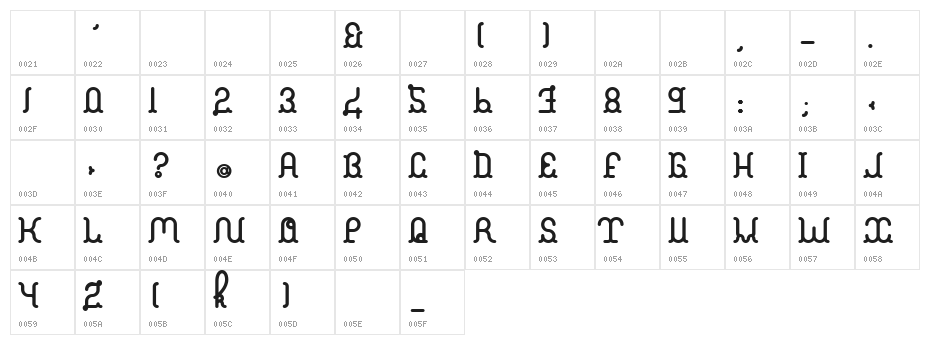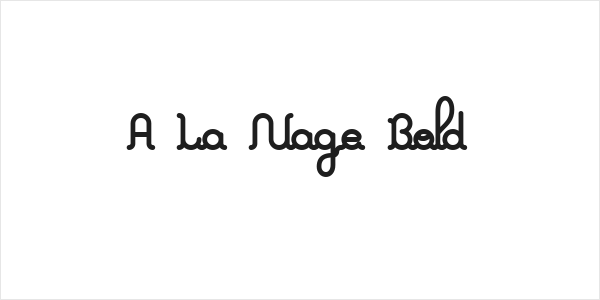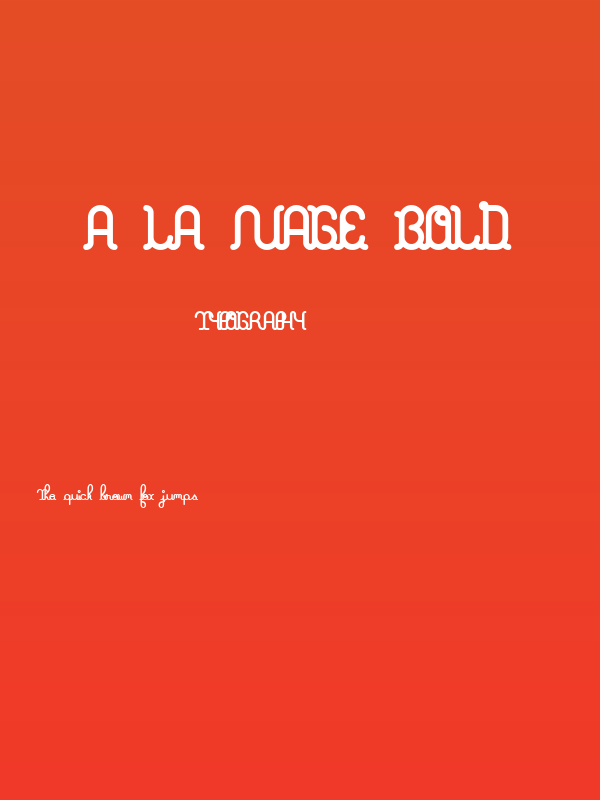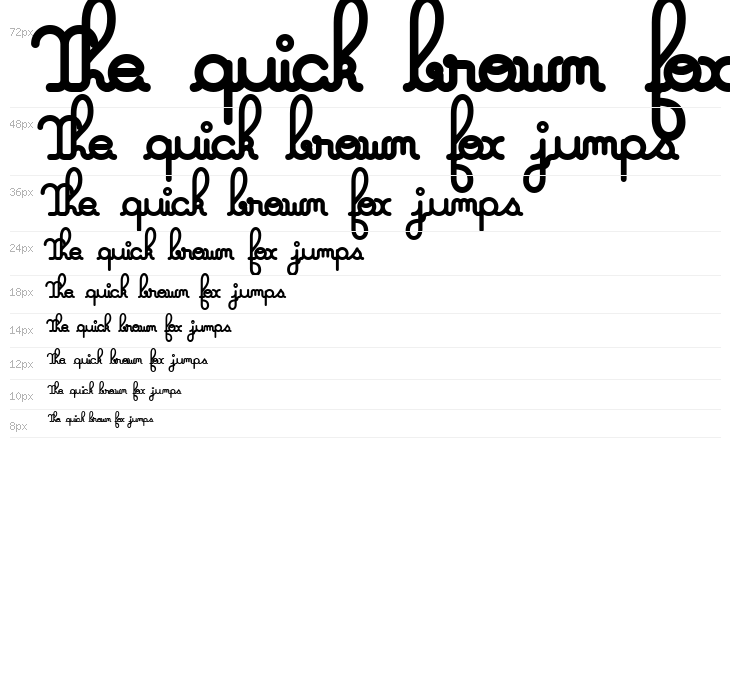
A La Nage Bold Font
A La Nage Bold Description
This font features a unique, interconnected design where each character is crafted with continuous loops and curves, creating a seamless flow from one letter to the next. The uppercase letters are bold and prominent, with a playful yet sophisticated style that captures attention. The lowercase letters maintain the same interconnected theme, offering a cohesive look across the entire alphabet. Numbers and special characters are designed with the same looping style, ensuring consistency throughout. This font's intricate design makes it stand out, ideal for creative projects that require a distinctive and artistic touch.
| Use Case | Logos, Headlines, Artistic Projects |
| Proposed Projects | Ideal for branding, logos, artistic posters, and creative invitations where a unique and eye-catching font is desired. |